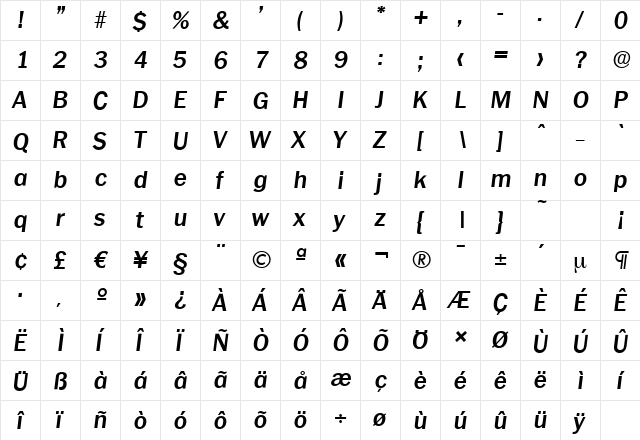
PlymouthSerial BoldItalic Font Preview
Design Context for PlymouthSerial Typeface
PlymouthSerial takes a measured approach to typography — its balanced proportions and neutral character make it a reliable workhorse for both digital and print work. The dynamic lean of this cut emphasises speed and emphasis in any layout. Its bold stroke weight gives it real presence on the page.
Pro Tip: Try PlymouthSerial for annotation and caption copy alongside an upright companion — the contrast in angle creates a dynamic but ordered typographic system.